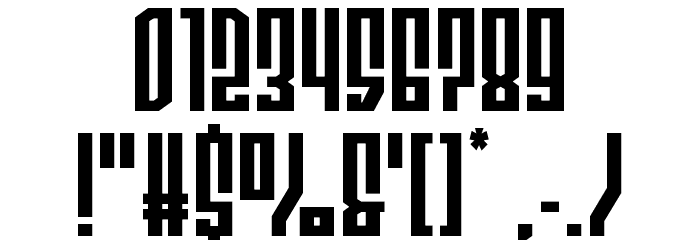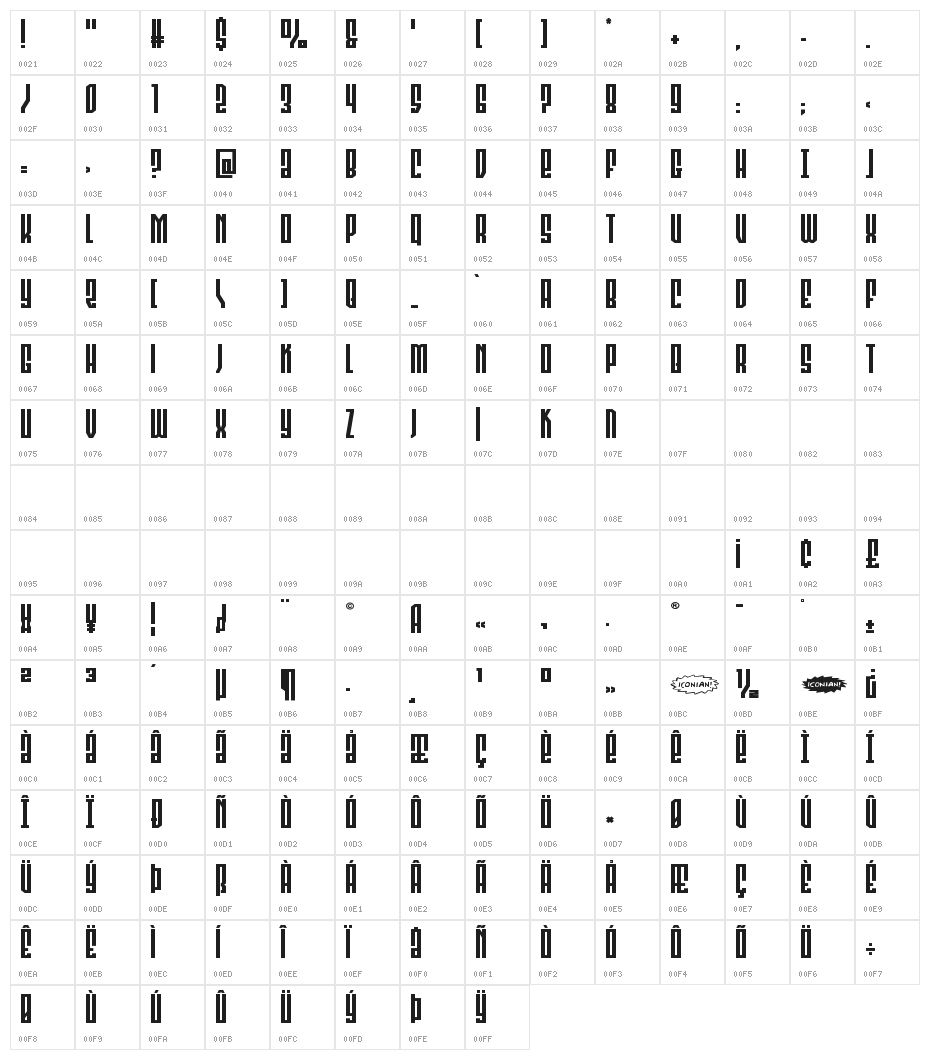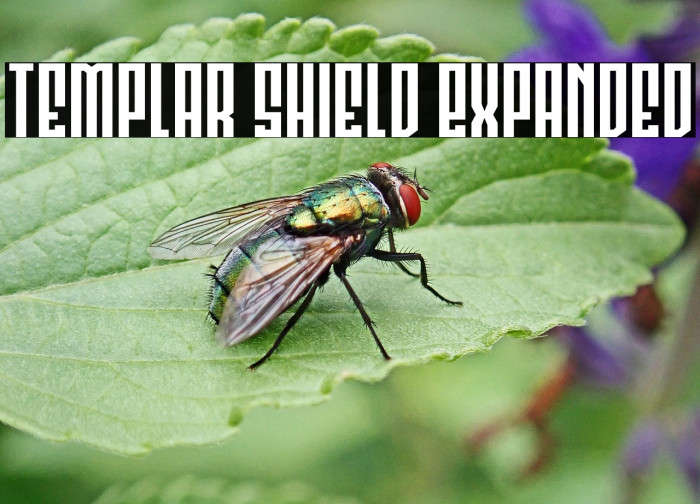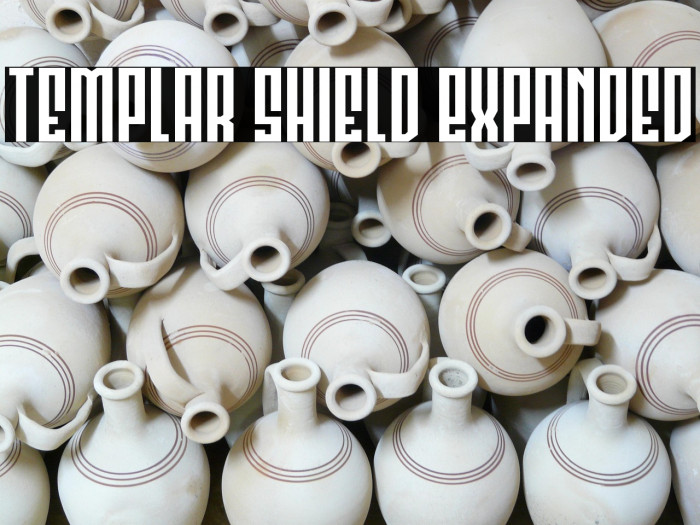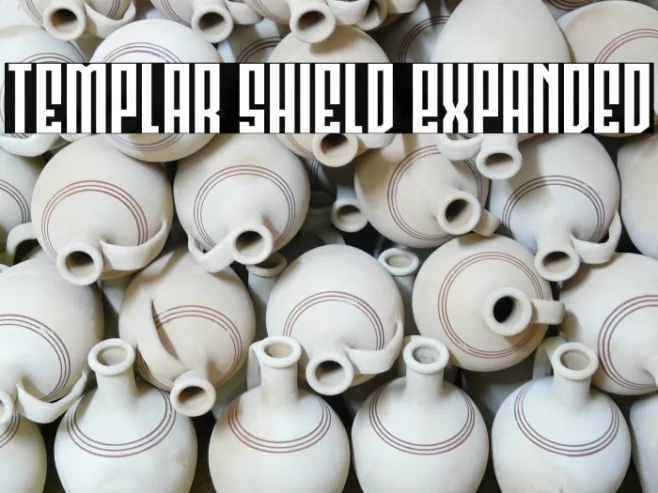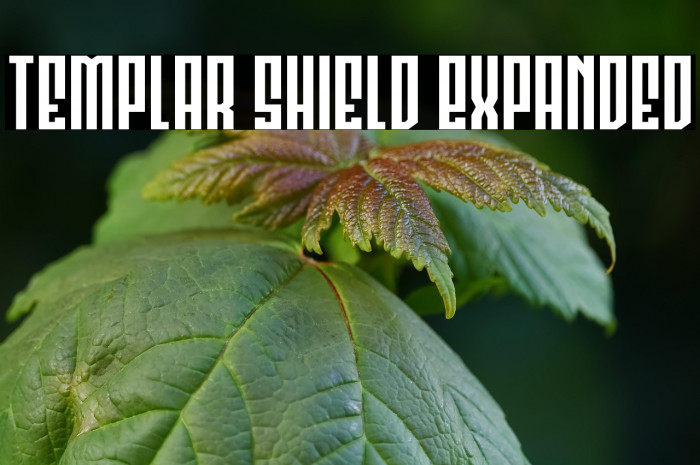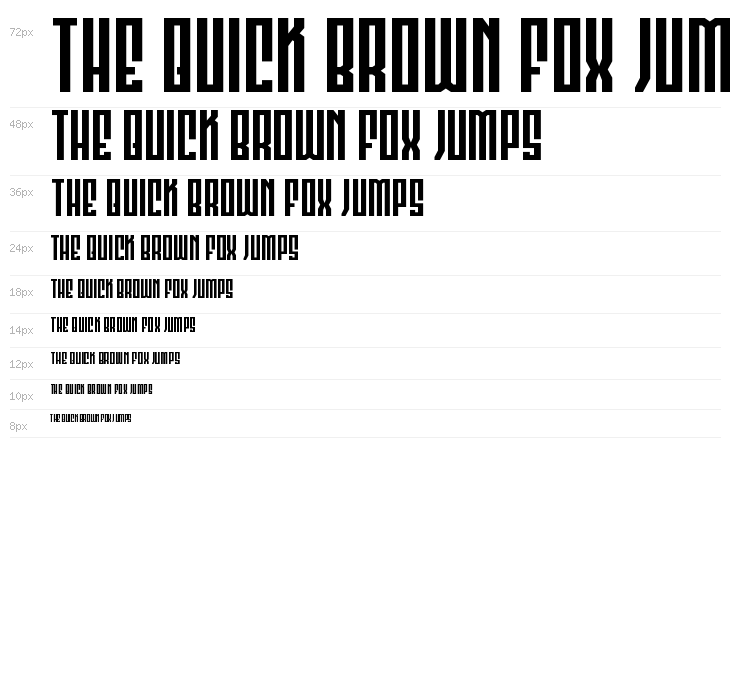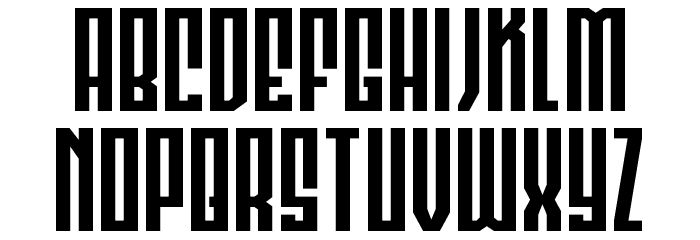
Templar Shield Expanded Font
Templar Shield Expanded Description
This font features a bold, geometric design with a strong emphasis on vertical and horizontal lines, creating a striking and impactful appearance. The characters are uniformly wide, with sharp angles and a block-like structure that conveys a sense of strength and stability. The uppercase and lowercase letters maintain a consistent style, with minimal variation in stroke width, contributing to a cohesive and unified look. The numerals and special characters are designed to match the boldness and geometric precision of the alphabet, ensuring a harmonious overall aesthetic. This font is ideal for projects that require a modern, assertive typeface with a touch of historical influence.